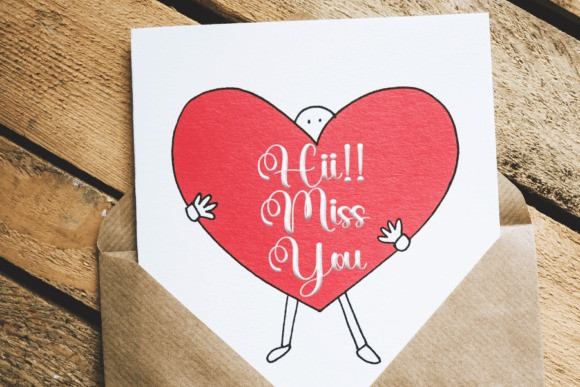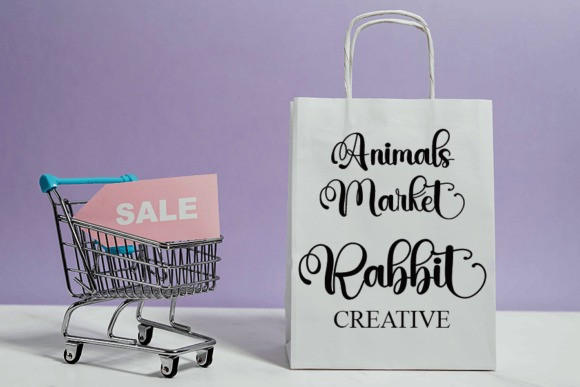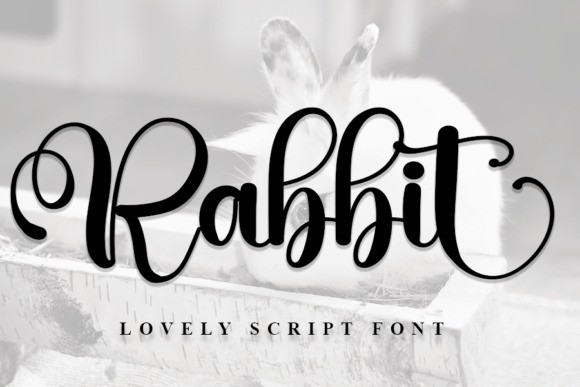
Rabbit Typeface
Rabbit Typeface is a beautiful and refined handwritten font. Classy and modern, it is perfect for logos, branding, invitations, stationery, wedding designs, social media posts, and much more!